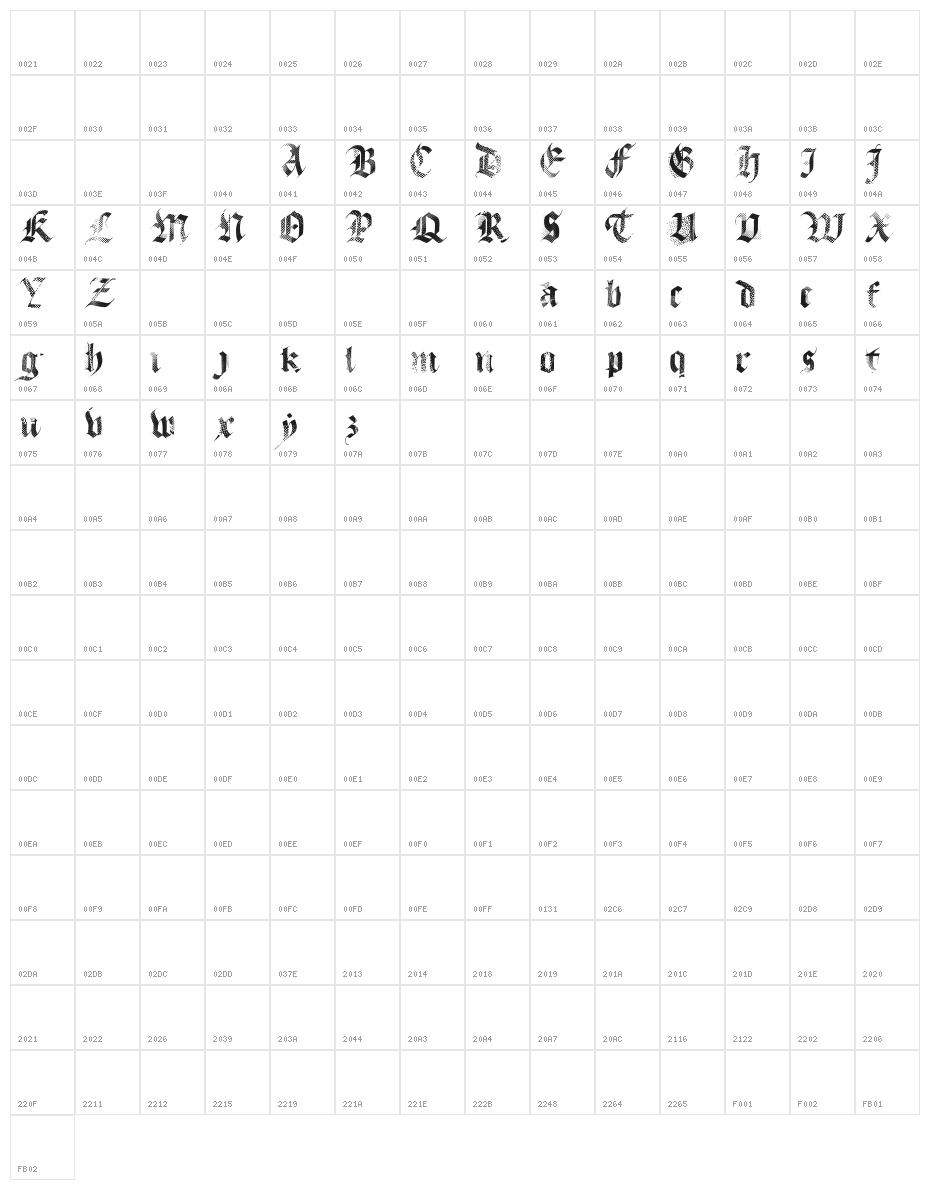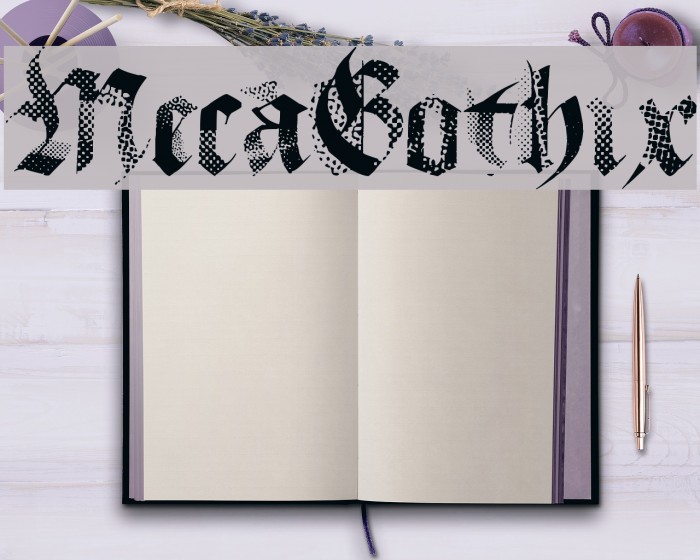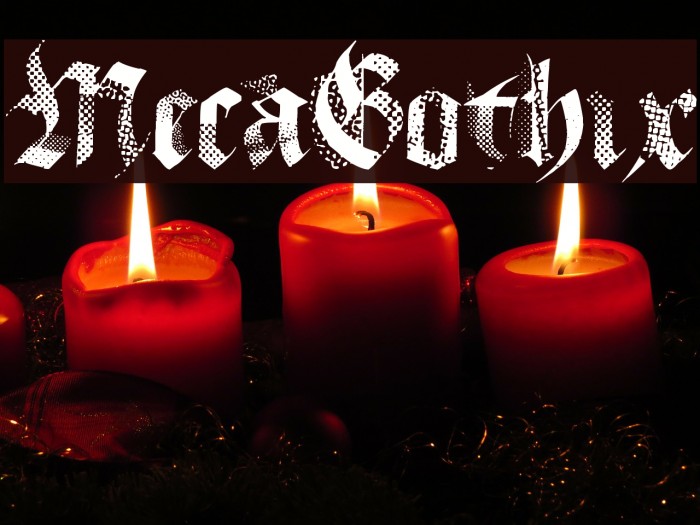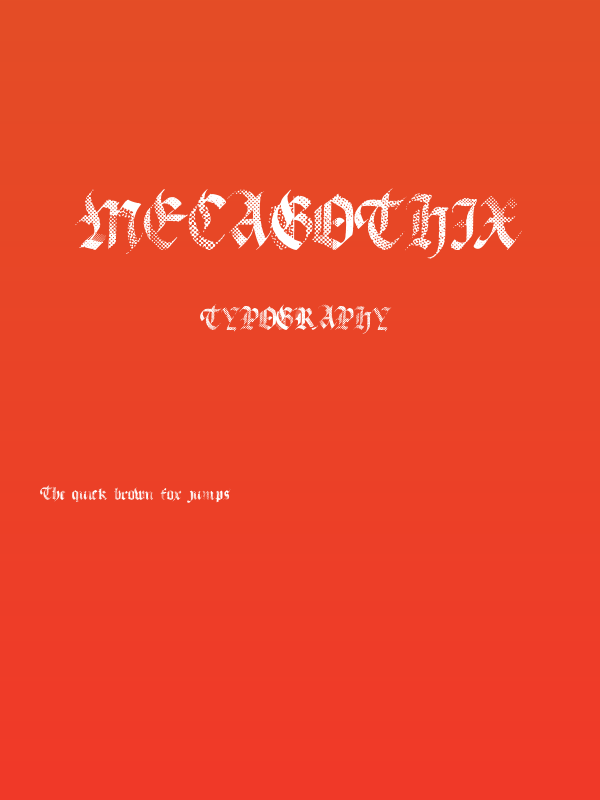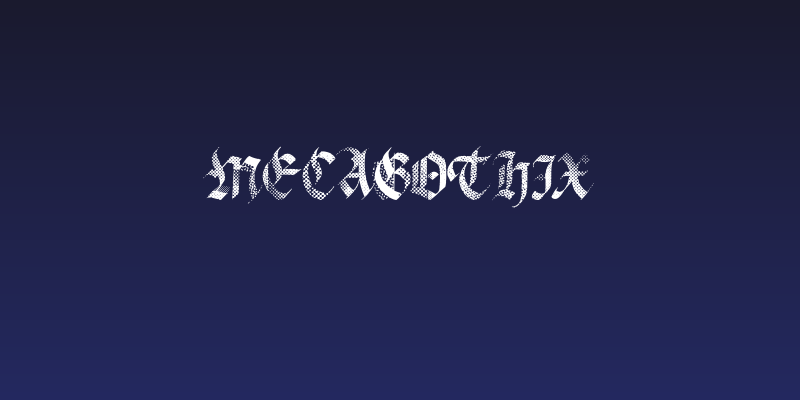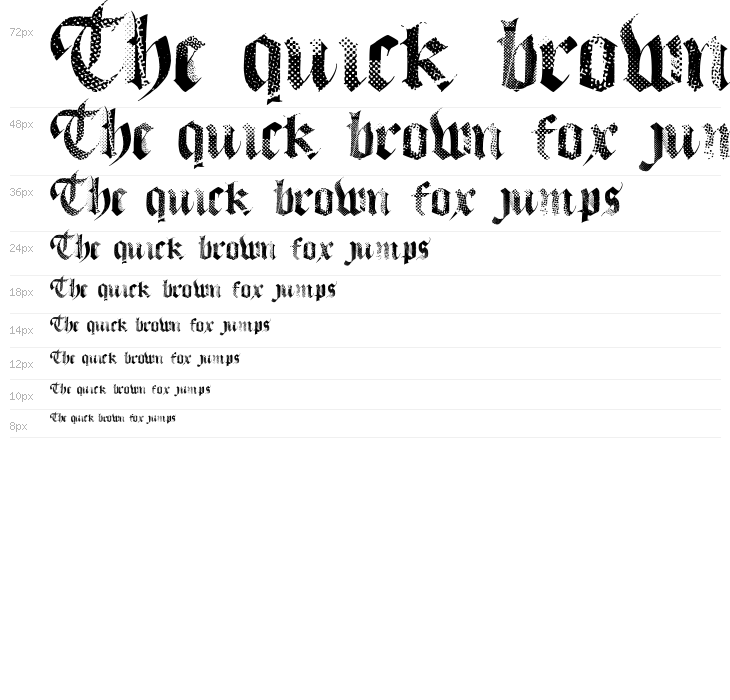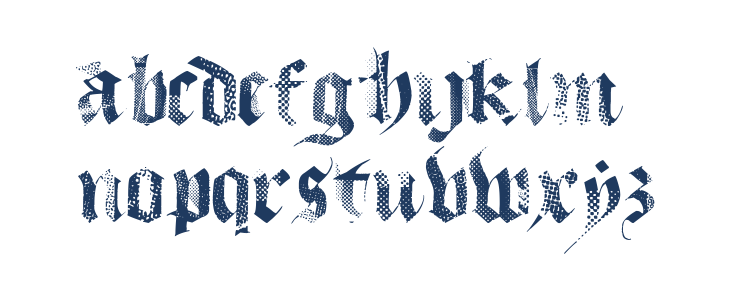
MecaGothix Font
MecaGothix Description
This font features a bold and intricate design, reminiscent of traditional Blackletter styles with a modern twist. The characters are adorned with a unique halftone pattern, creating a textured and dynamic appearance. The strokes are thick and angular, with sharp edges and decorative flourishes that add to its gothic aesthetic. This font captures a sense of historical elegance while incorporating contemporary elements, making it stand out in any design project.
| Proposed Projects | Ideal for projects that require a dramatic and historical touch, such as posters, album covers, or branding for gothic-themed events. |